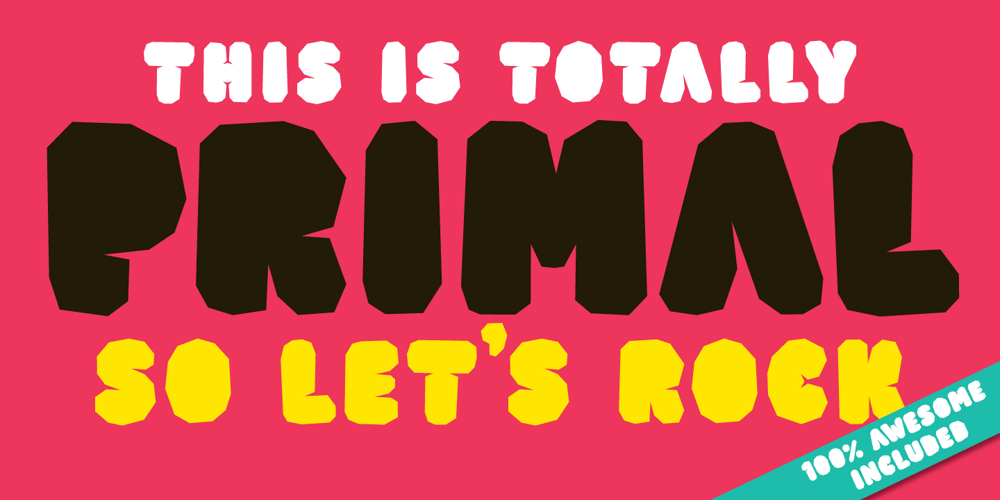
Primal Font Family was designed by Jan Willem Wennekes and published by Zeptonn. Primal contains 1 styles and family package options. It’s time for Primal. It’s time to Rock! Primal is a polygonal typeface created with primeval times in mind. All forms have been created using few lines, angles and points. This typeface will enable you to create type that will almost scream off the page. Raaawwhrrr! Very useful for concert posters, techno parties or caveman signs. Whichever you prefer! Primal contains uppercase, smallcaps and underscored lowercase letters. By turning on standard ligatures the underscored letters will automatically connect, resulting in one single underscored line. Primal also contains a number of opentype ordinals and catchwords. The latter can be unlocked by using discretionary ligatures. This typeface is created by illustrative designer Zeptonn.